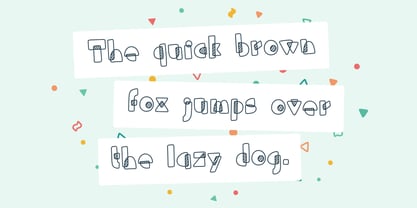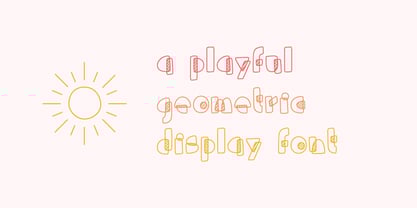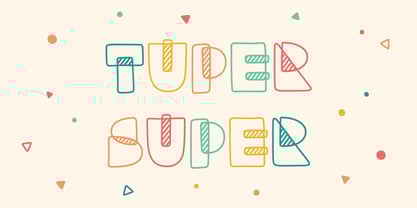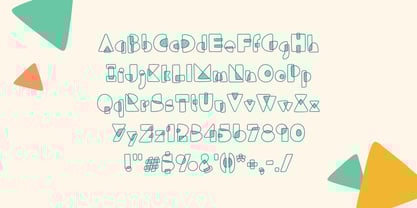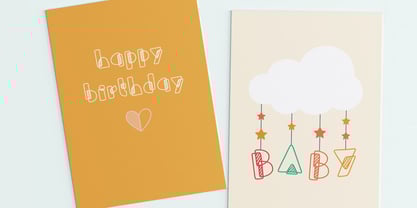
Tuper Super
by Lauren Ashpole
The Tuper Super Font Family was designed by Lauren Ashpole and published by Lauren Ashpole. Tuper Super contains 1 styles. More about this family
Tuper Super is a playful font designed with casual projects and children's products in mind. Each character is made up of stacked, hand-drawn geometric shape outlines with diagonal shading in the overlaps. For the best effect, I'd recommend larger display sizing for legibility.